The Geometry of Type: The Anatomy of 100 Essential Typefaces
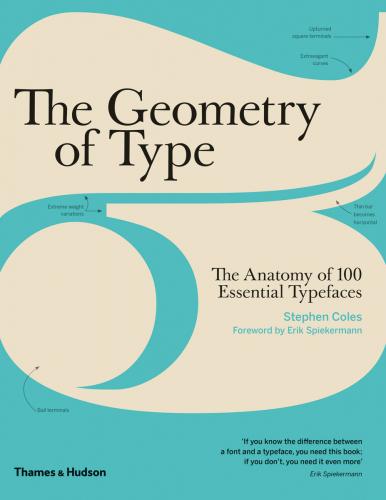
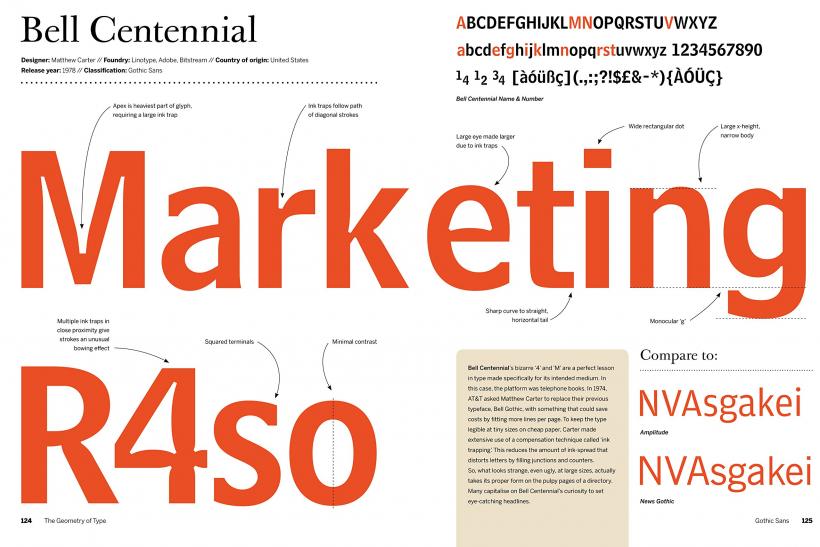
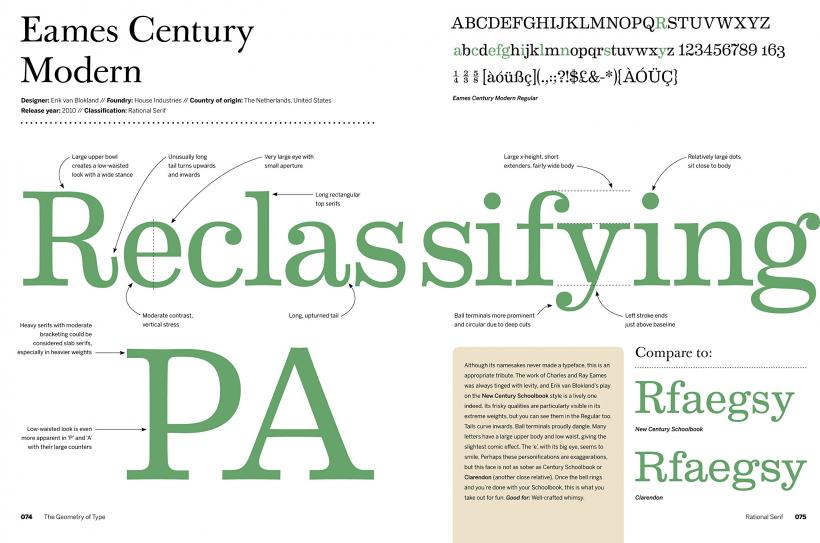
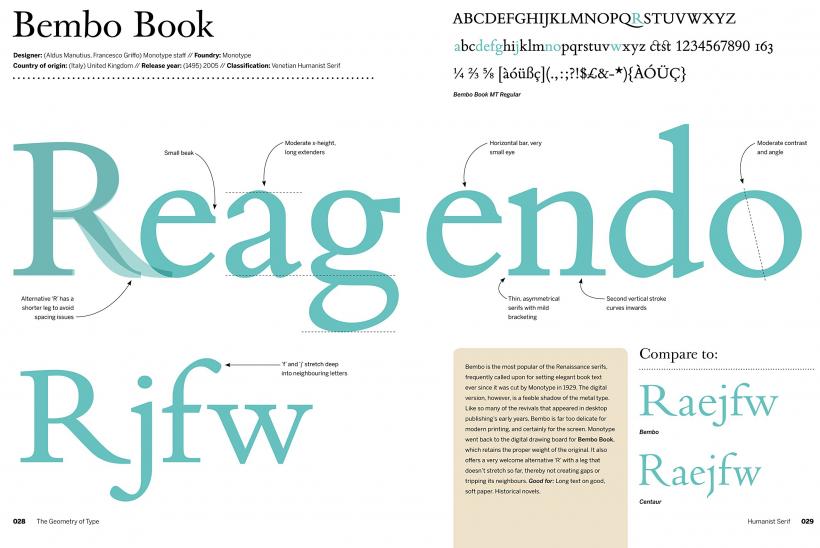
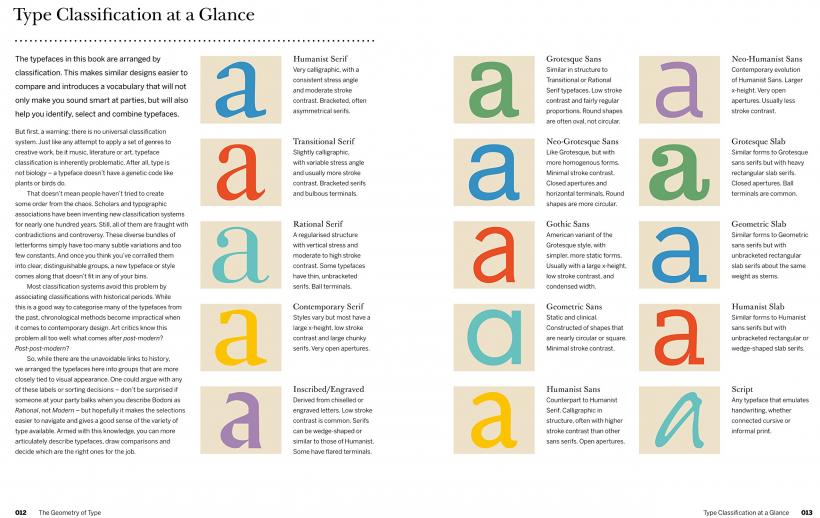
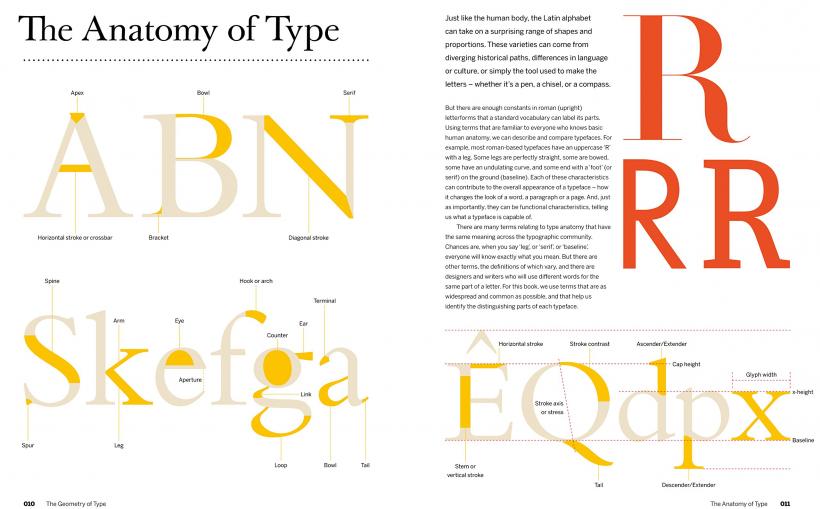
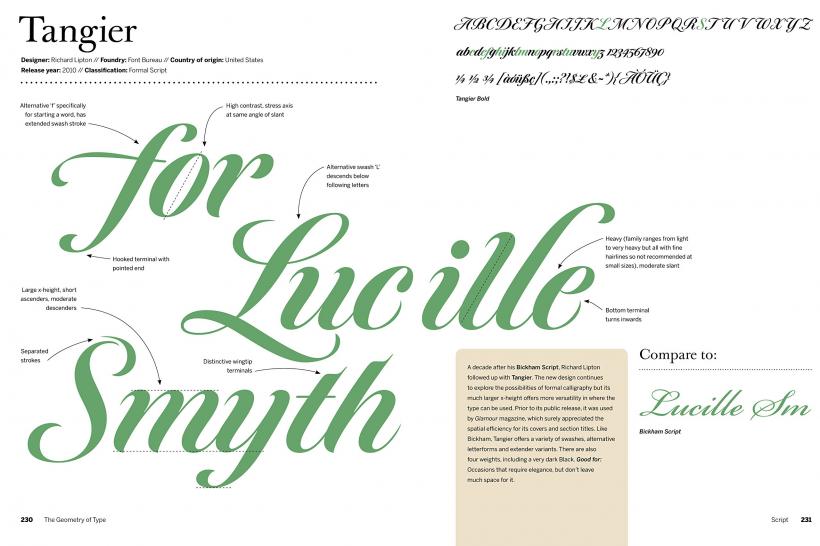
The Geometry of Type explores 100 traditional and modern typefaces in detail, with a full spread devoted to each entry.
Characters from each typeface are enlarged and annotated to reveal key features, anatomical details, and the finer, often-overlooked elements of type design, which shows how these attributes affect mood and readability. Sidebar information lists the designer and foundry, the year of release and the different weights and styles available, while feature boxes explain the origins and best uses for each typeface, such as whether it is suitable for running text or as a display font for headlines. To help the reader spot each typeface in the wider world, the full character set is shown, and the best letters for identification are highlighted.
This beautiful and highly practical work of reference for font spotters, designers and users is a close-up celebration of typefaces and great type design.
About the Author:
Stephen Coles is a writer and typographer. After six years as creative director at FontShop in San Francisco, he now edits the websites Typographica, Fonts In Use and The Mid-Century Modernist. Stephen is a regular contributor to The Print and The Codex magazines, a Type Camp instructor and a member of the FontFont TypeBoard. He also contributed editorial content to the most recent edition of FontBook: Digital Typeface Compendium.